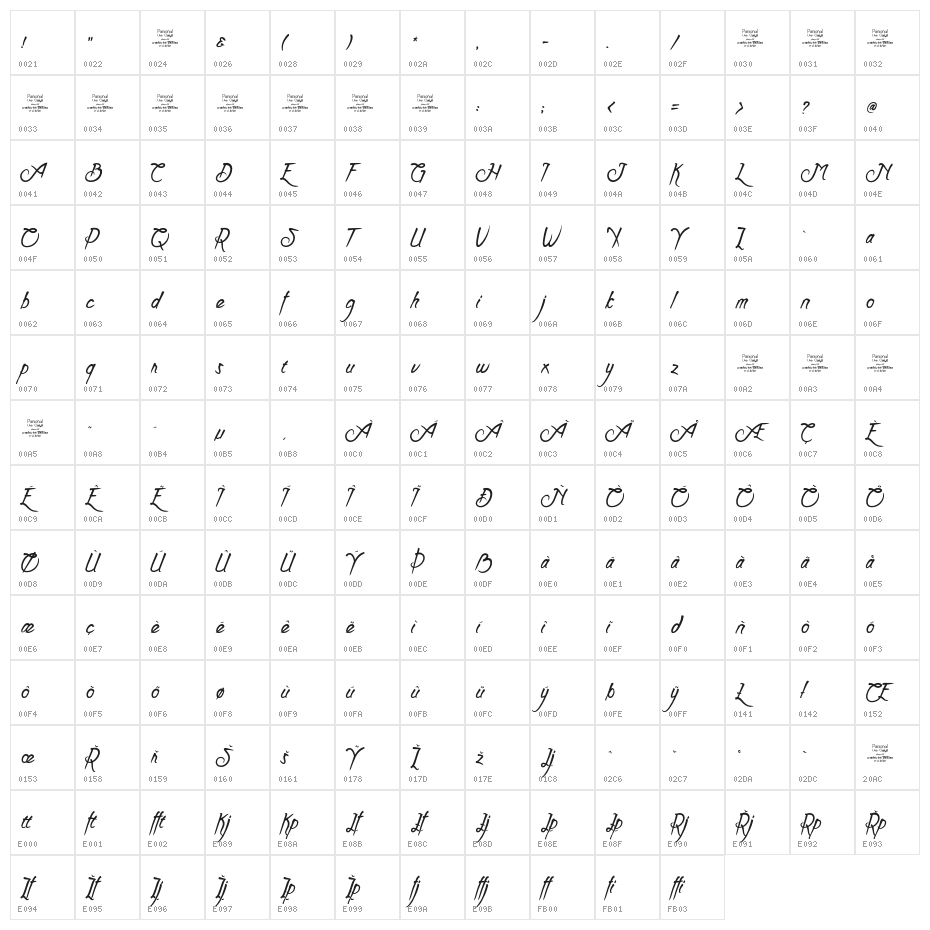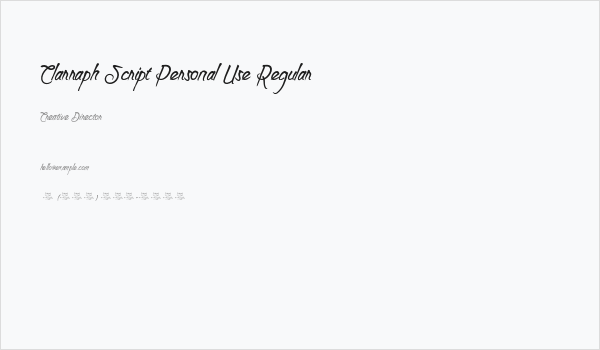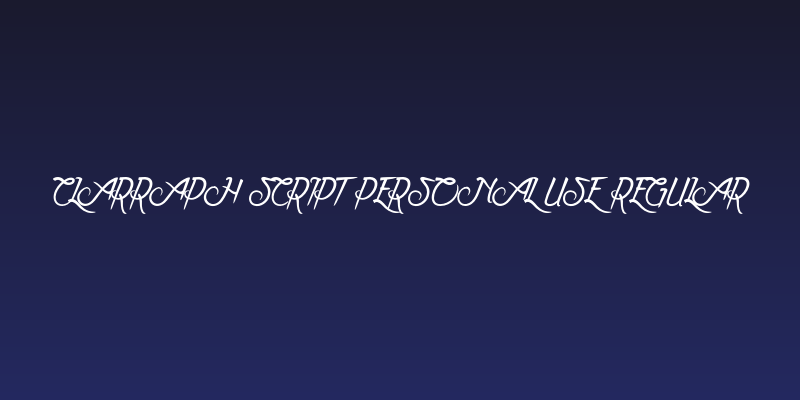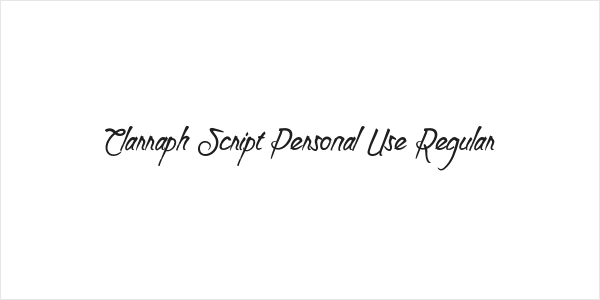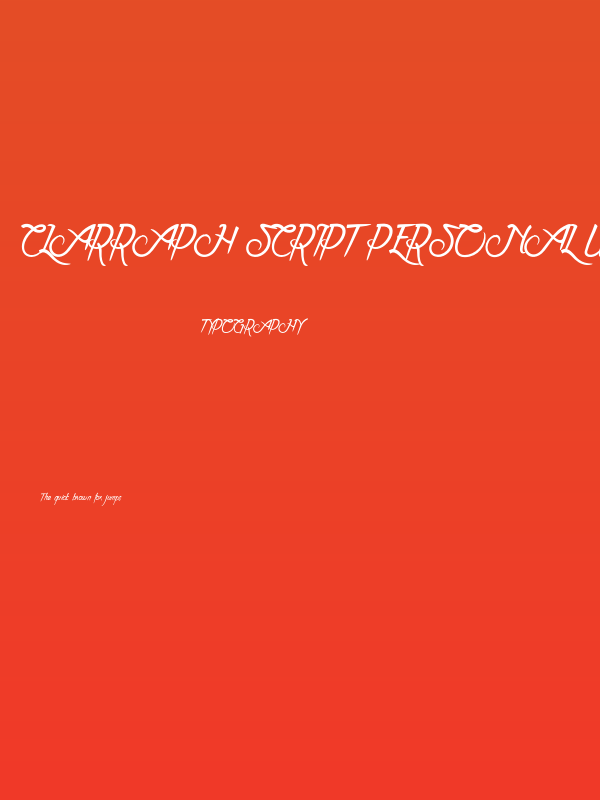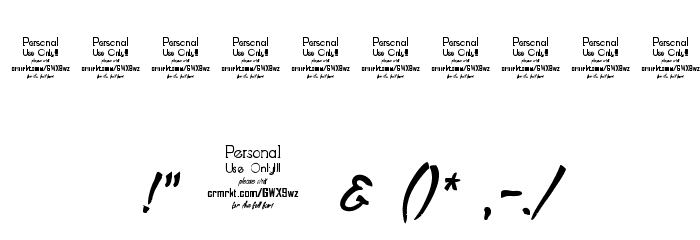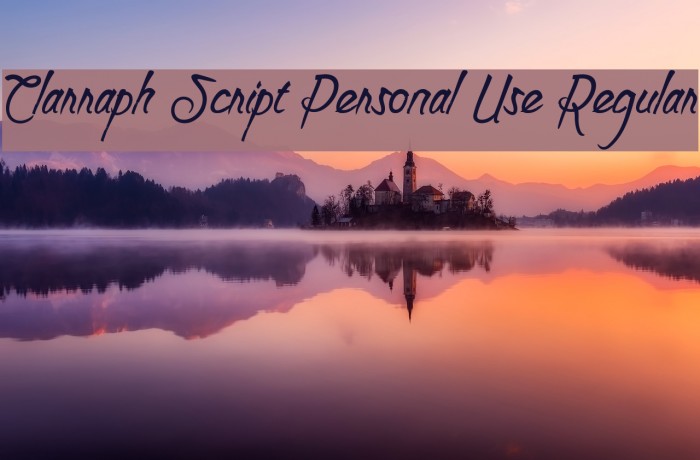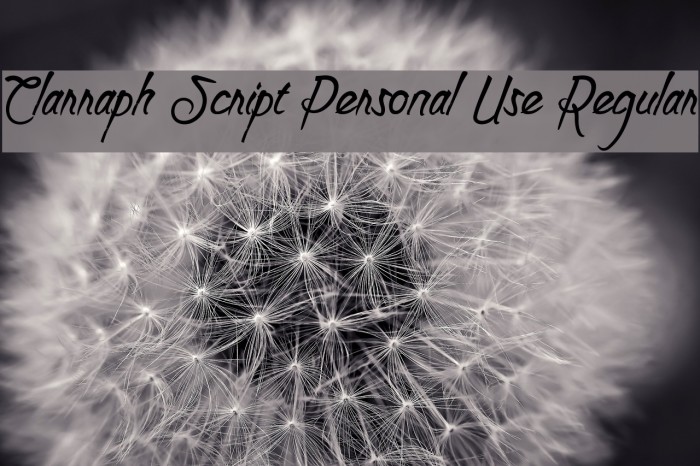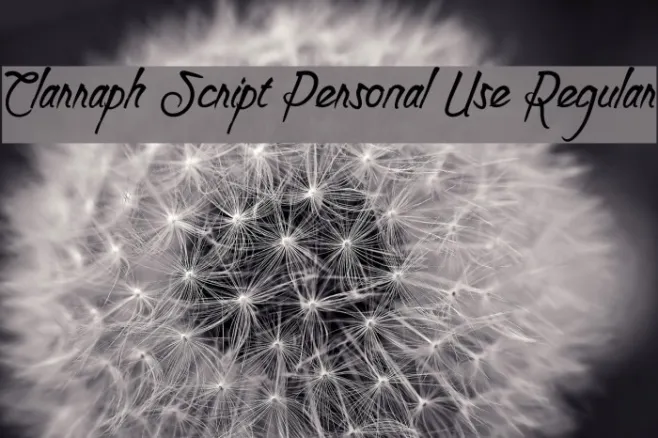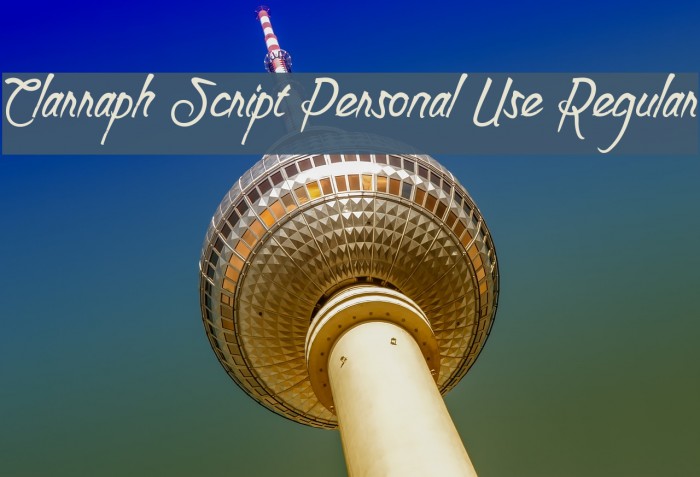
Clarraph Script Personal Use Regular Font
Clarraph Script Personal Use Regular Description
This script font exudes elegance and fluidity, characterized by its flowing, cursive style that mimics natural handwriting. The uppercase letters are ornate, with sweeping curves and loops that add a touch of sophistication. The lowercase letters maintain a consistent flow, enhancing readability while preserving the font's decorative nature. The numerals and special characters are designed to match the overall aesthetic, featuring similar curves and flourishes. This font is ideal for projects that require a personal, elegant touch, such as invitations, greeting cards, or branding materials.
| Proposed Projects | Ideal for wedding invitations, greeting cards, personal branding, and elegant signage. |